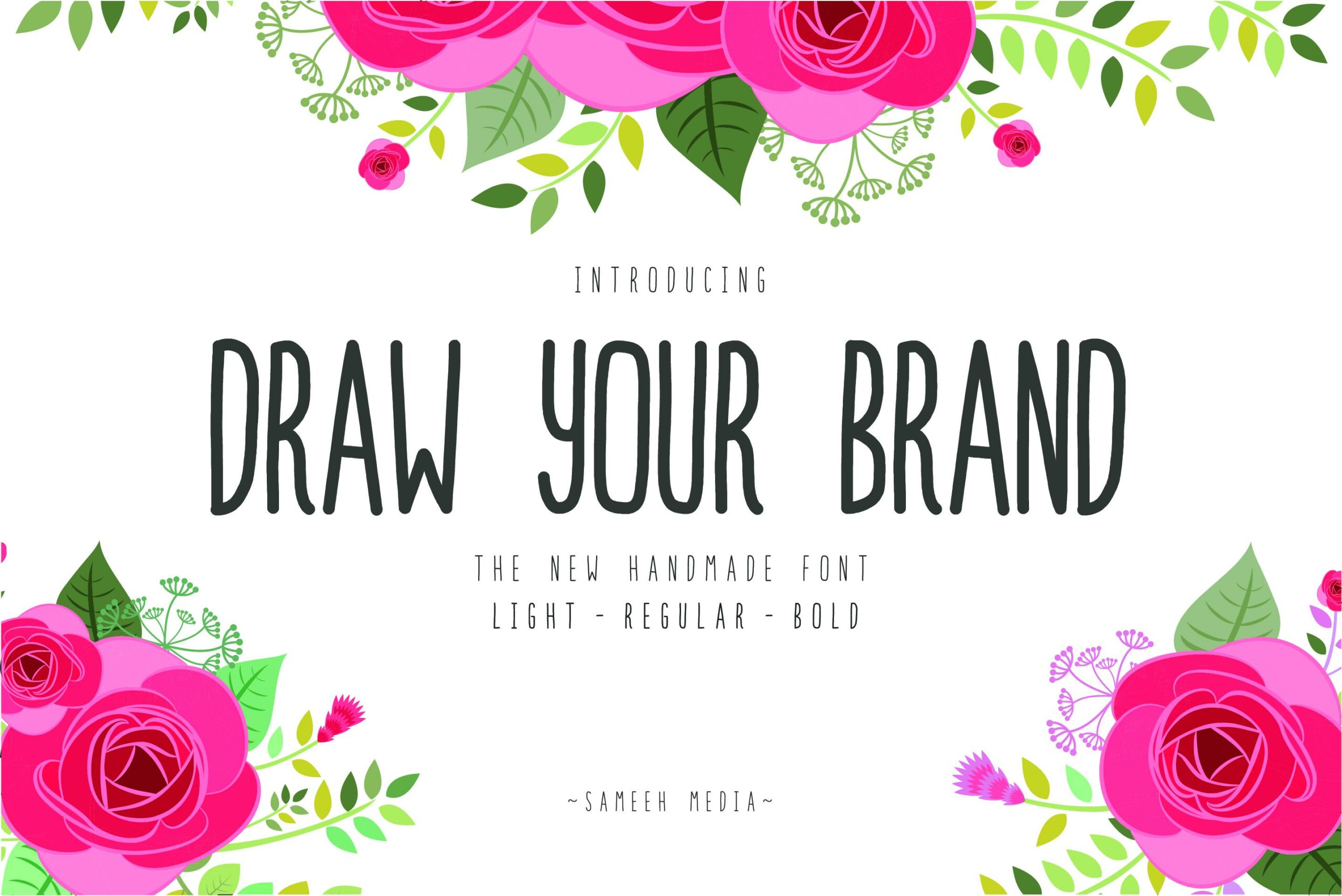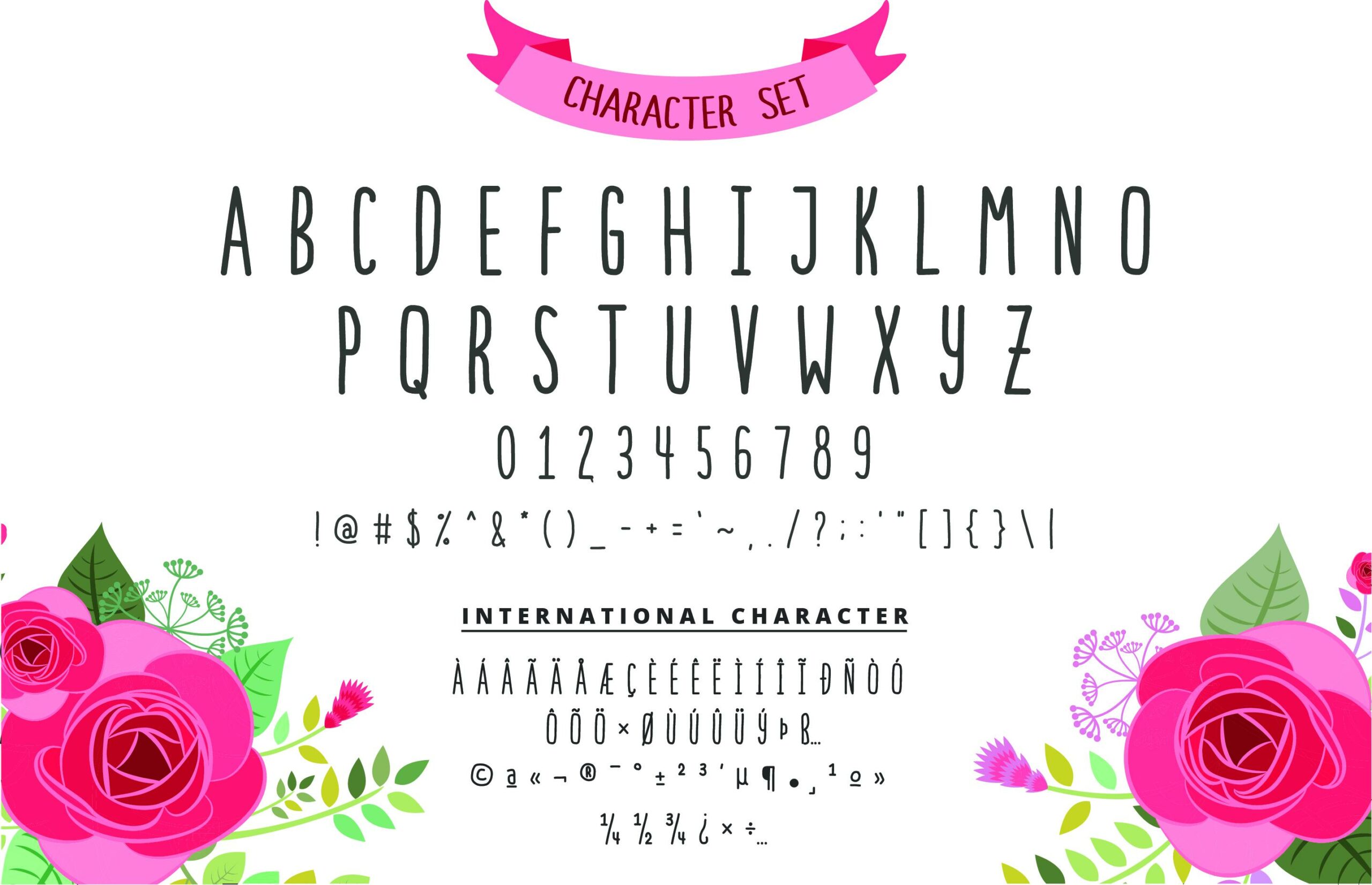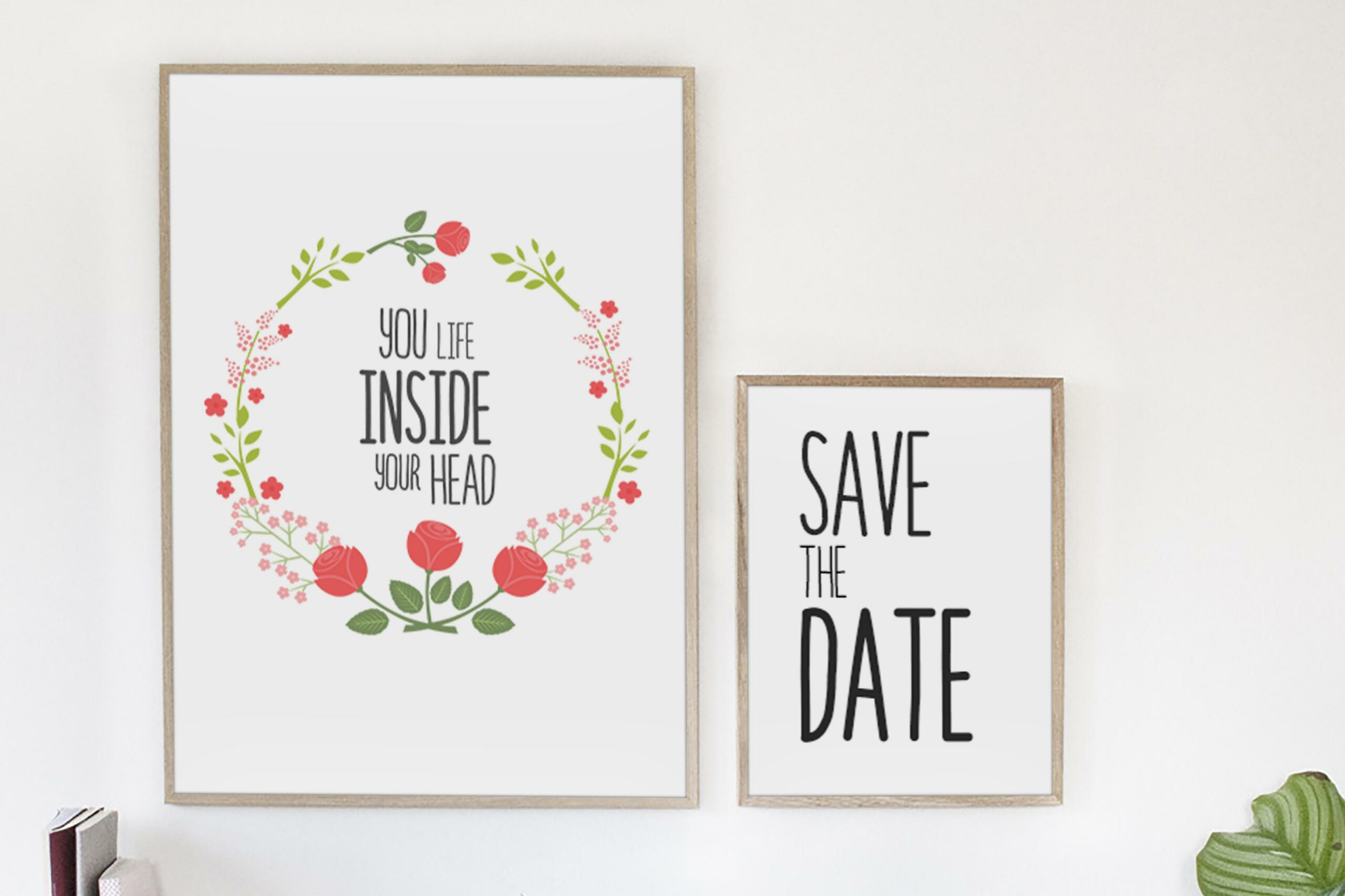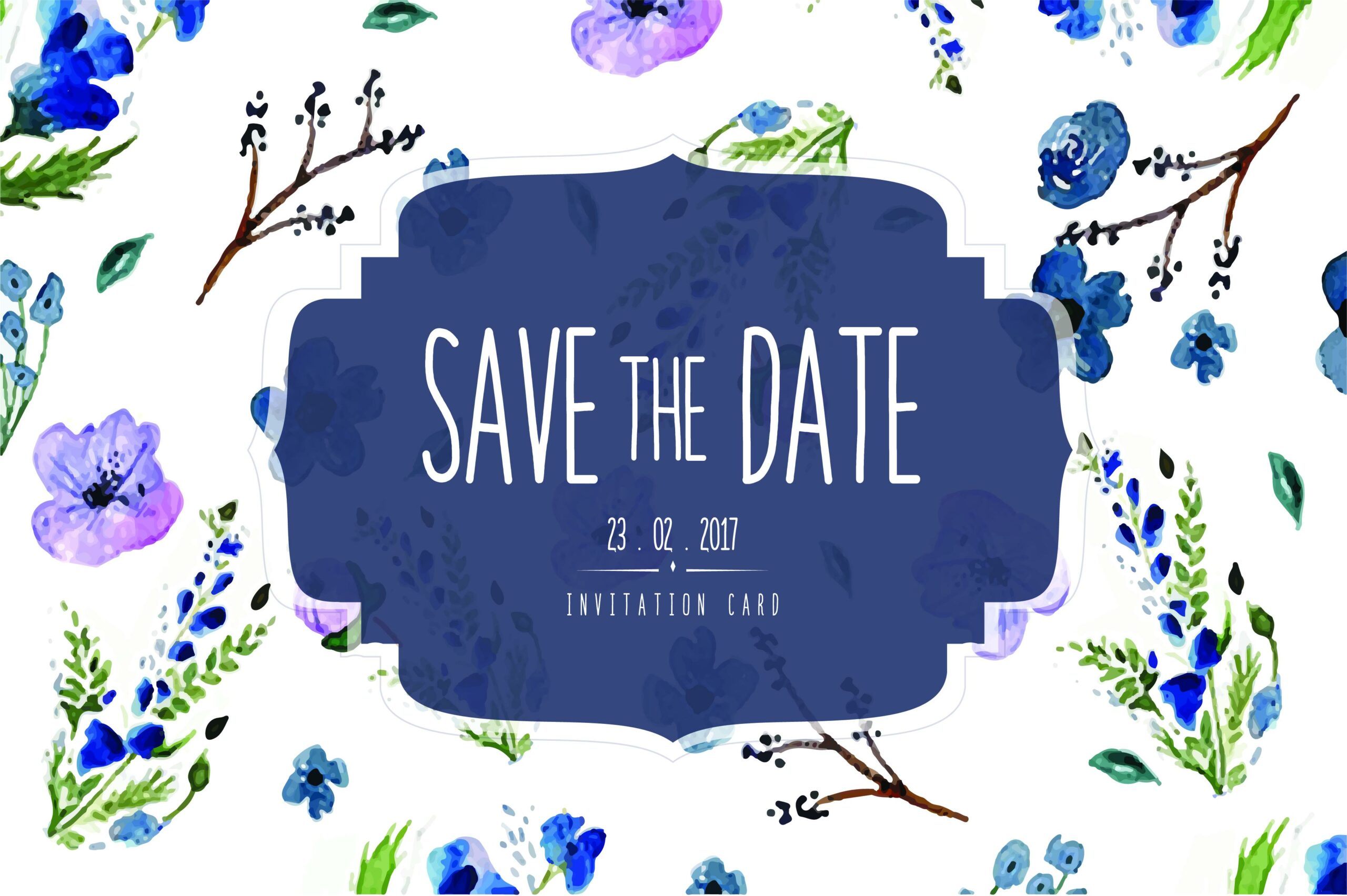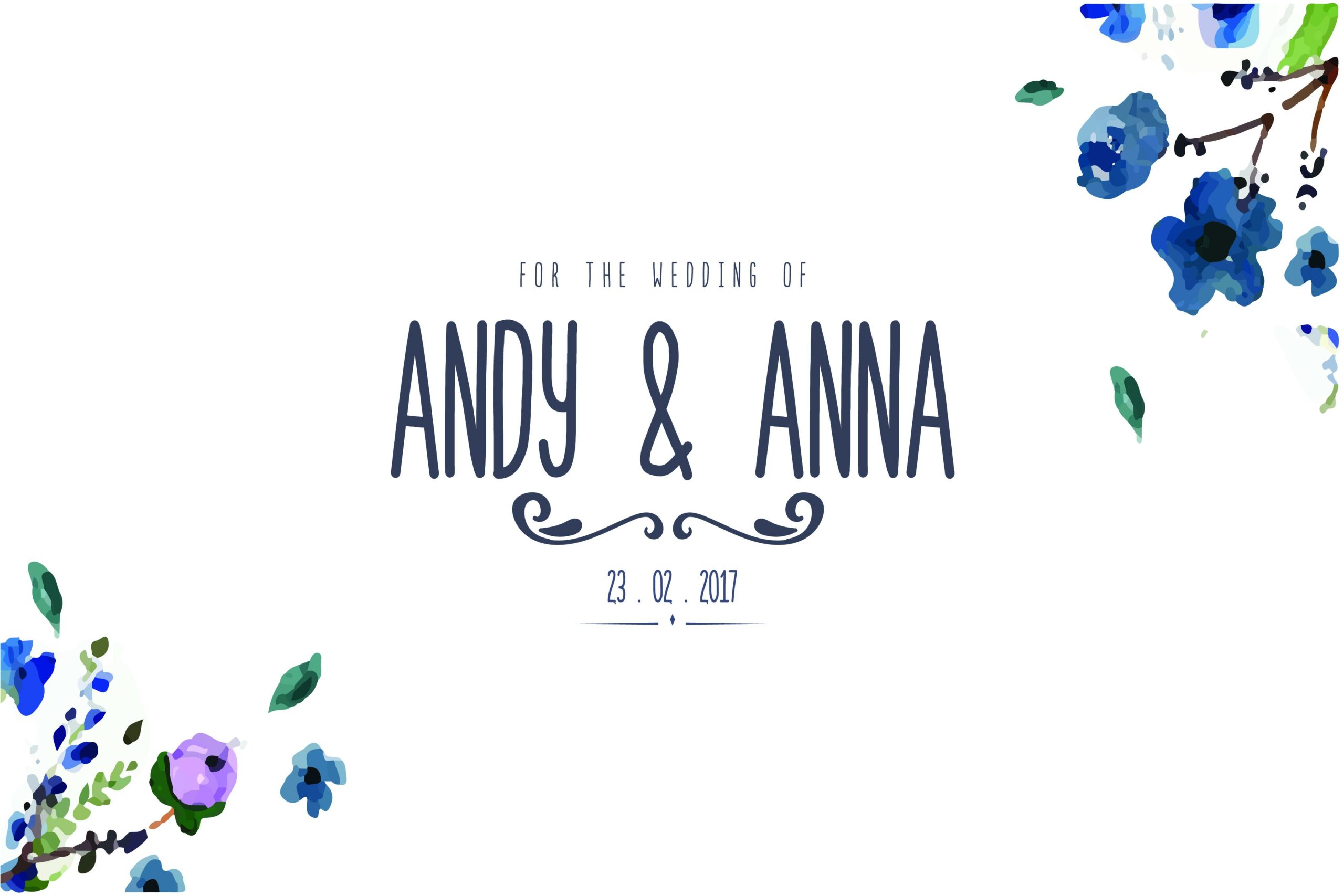
Draw Your Brand Handmade Font
About Draw Your Brand Handmade Font
Draw Your Brand is a hand-made marker pen font, designed to easily mix and match. This family allows you to create hand-lettered design in a blink of an eye.